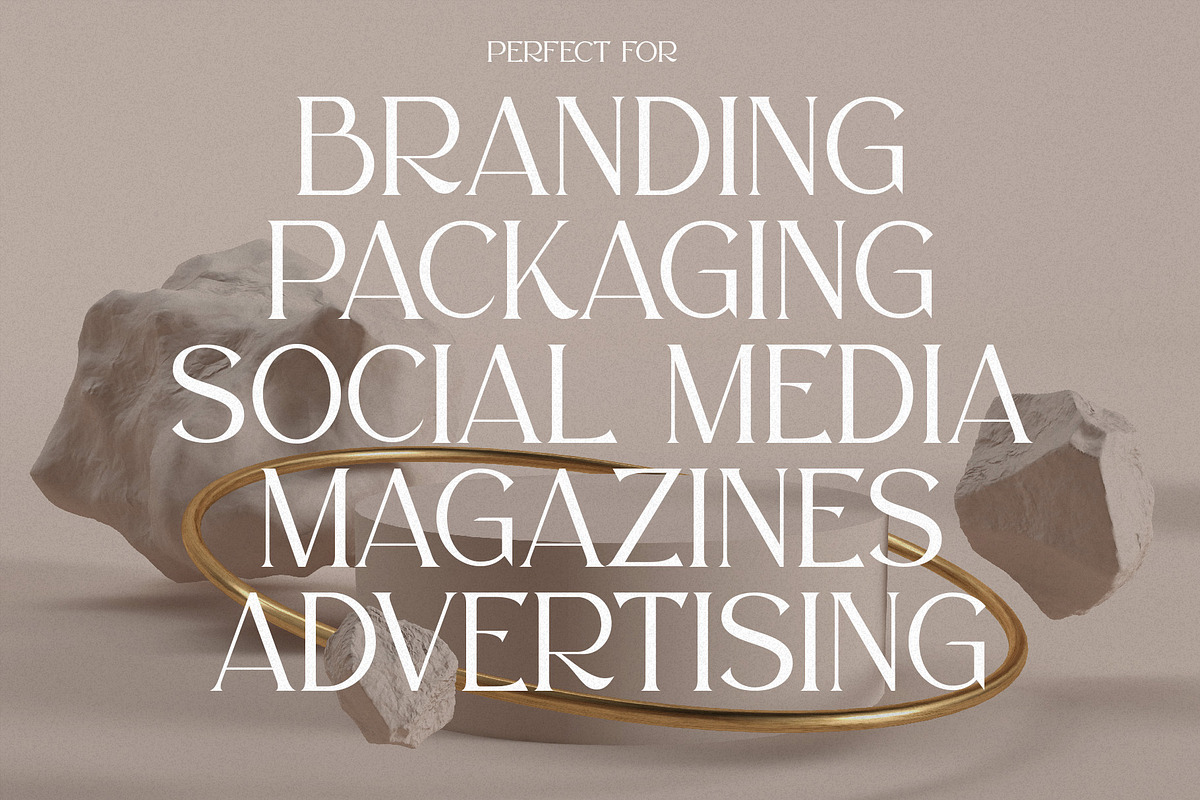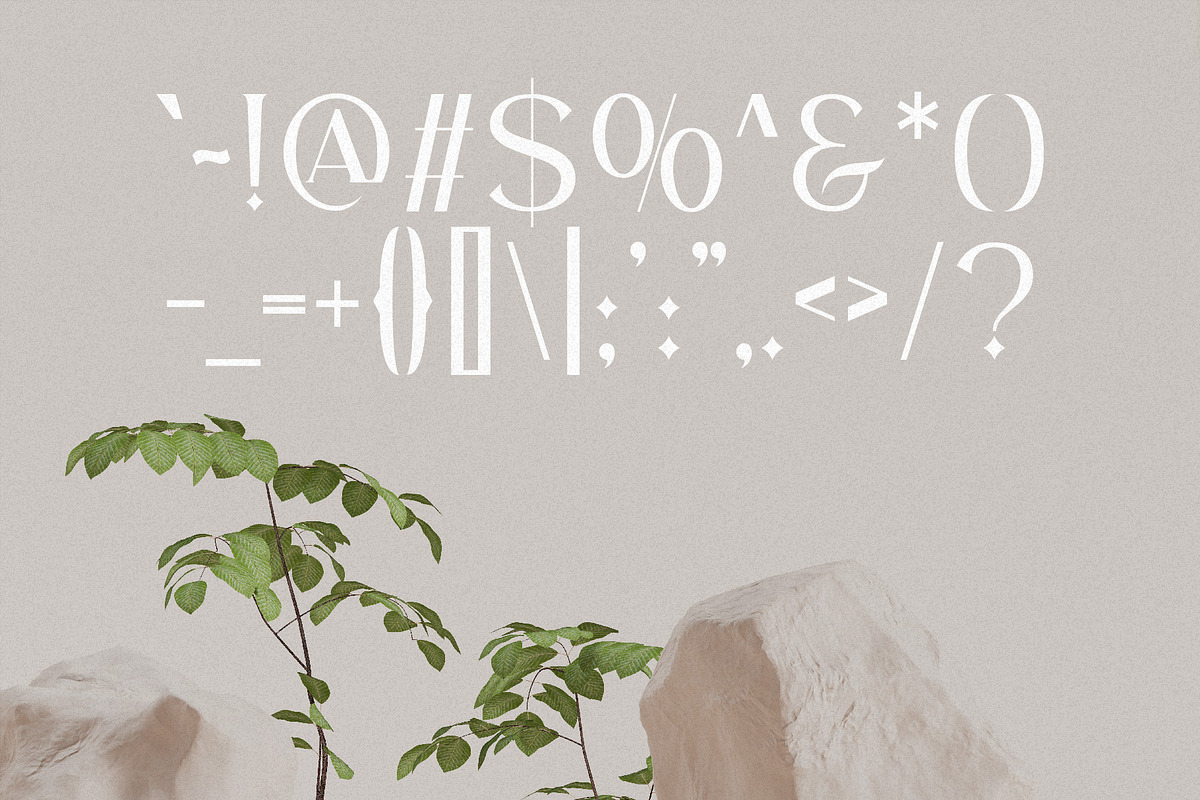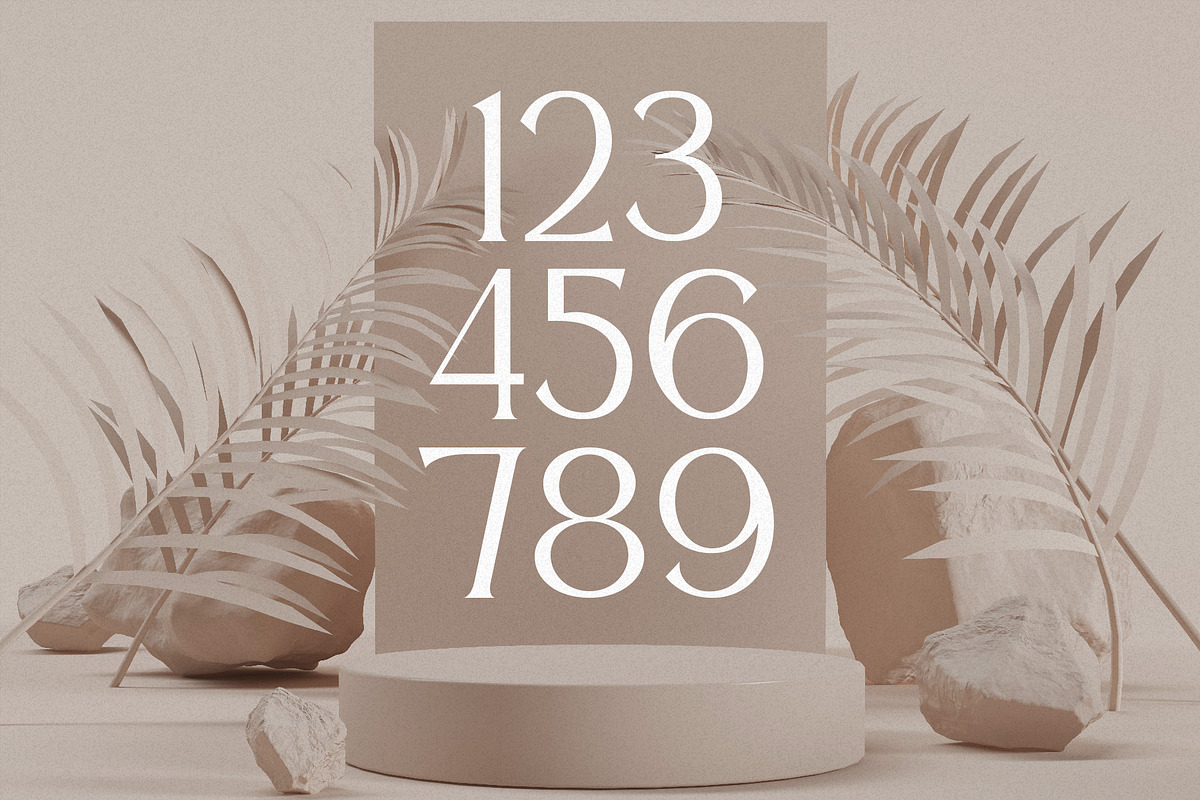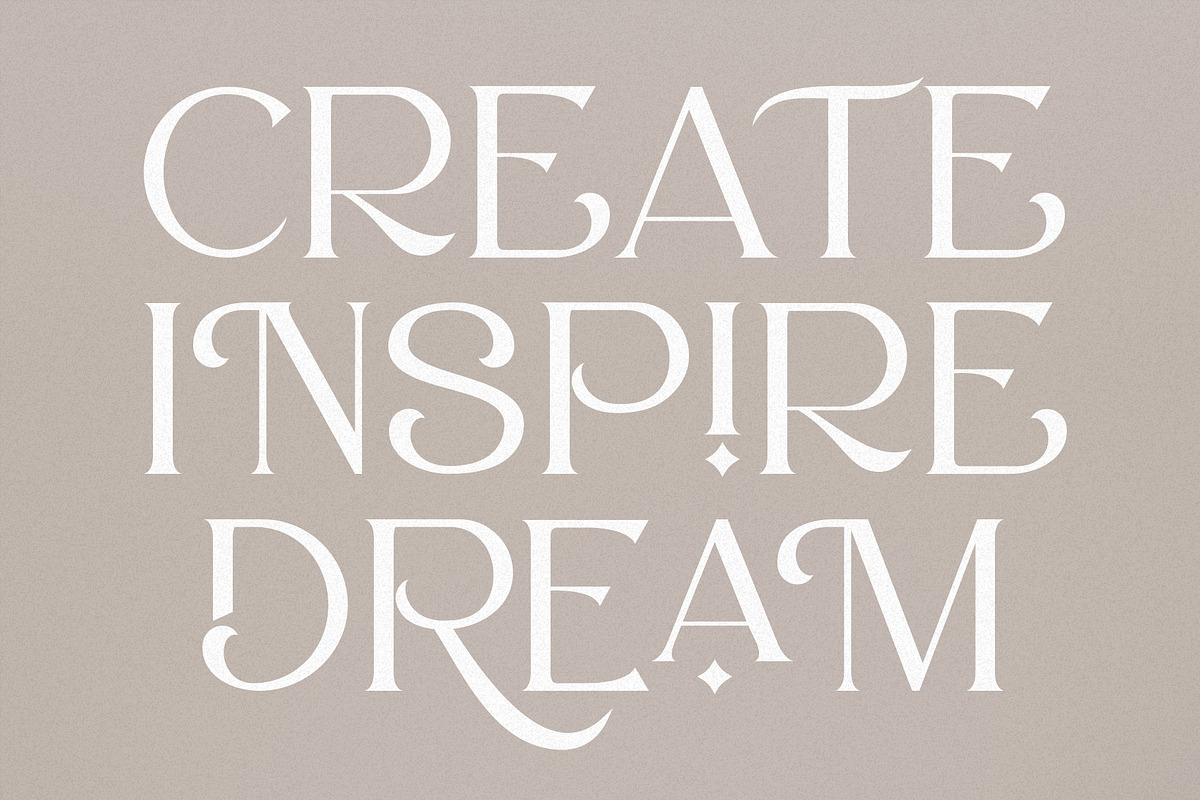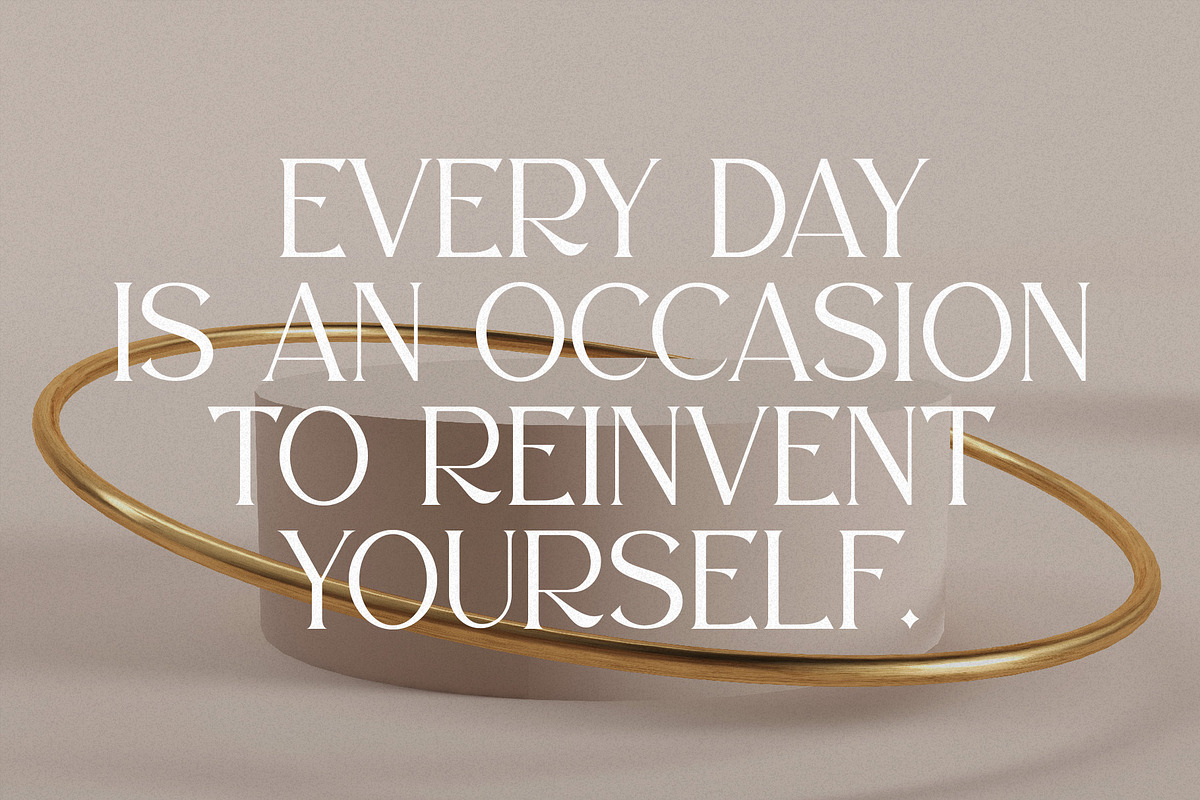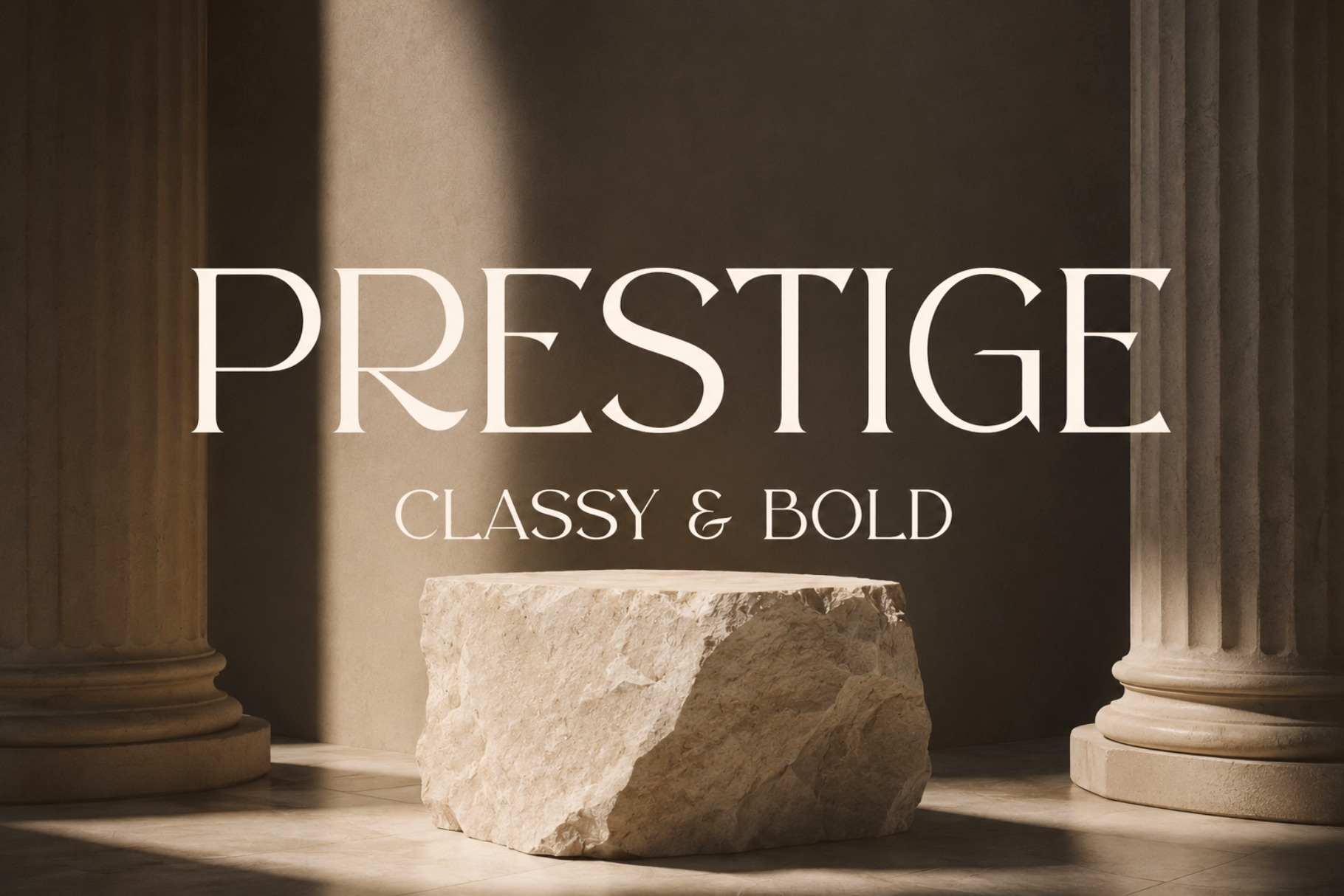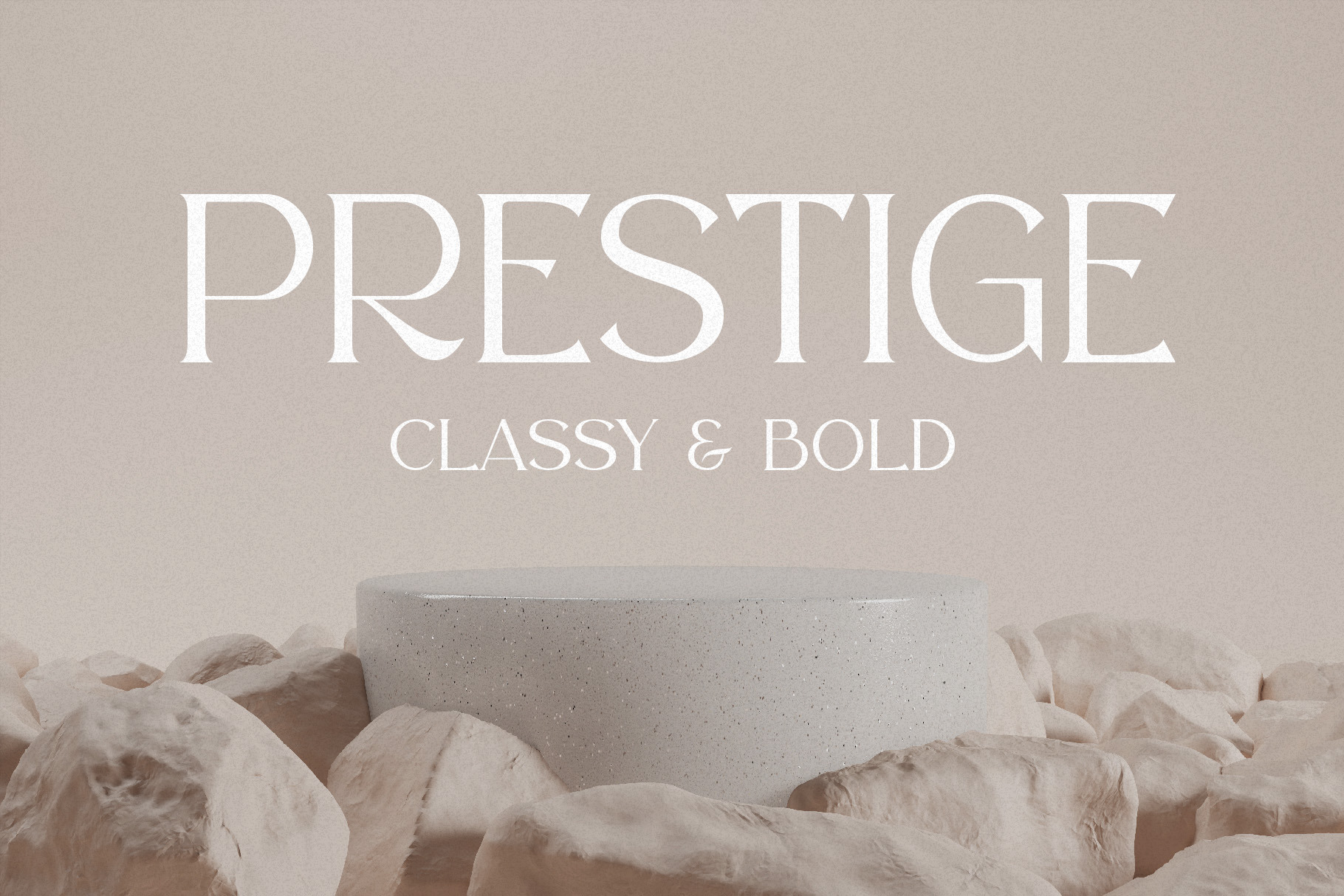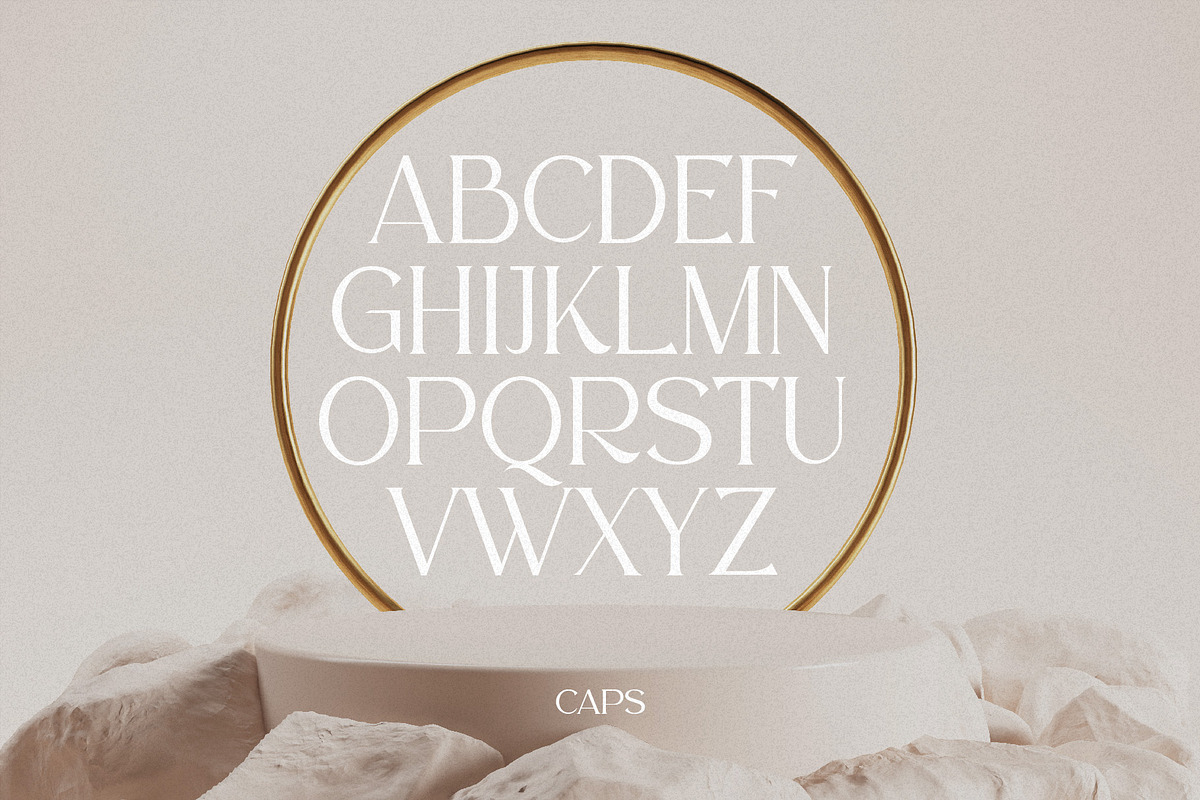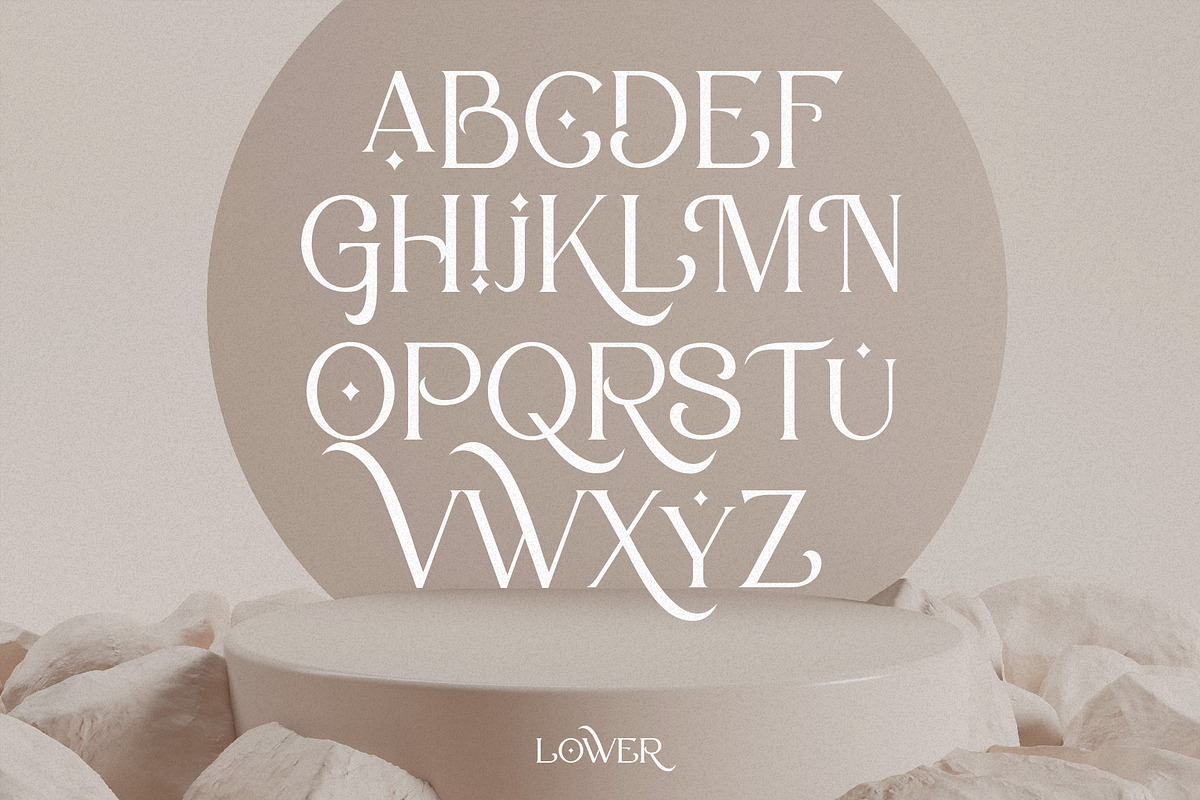
Prestige - Classy Serif Typeface
Prestige is an all caps serif typeface. This font was specially designed to be used for classy, bold, and simple projects. The font is perfectly suitable for creating elegant logos, posters, editorials, packaging, social media banners or covers, and much much more. Mix and match upper and lowercase letters to create gorgeous outcomes. Enjoy!